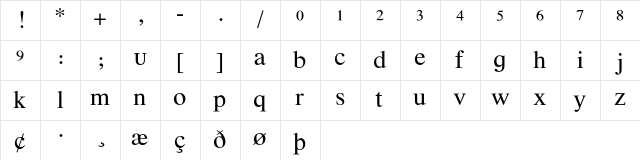
Times LT Std Phonetic
Style: Phonetic
Complete Times LT Std Phonetic glyph index. Displaying only characters natively supported by Times LT Std Phonetic font.
Design Context for Times LT Std
Times LT Std is a composed and adaptable typeface that performs quietly and consistently across a wide range of design contexts. Its slender proportions lend an understated elegance to any composition.